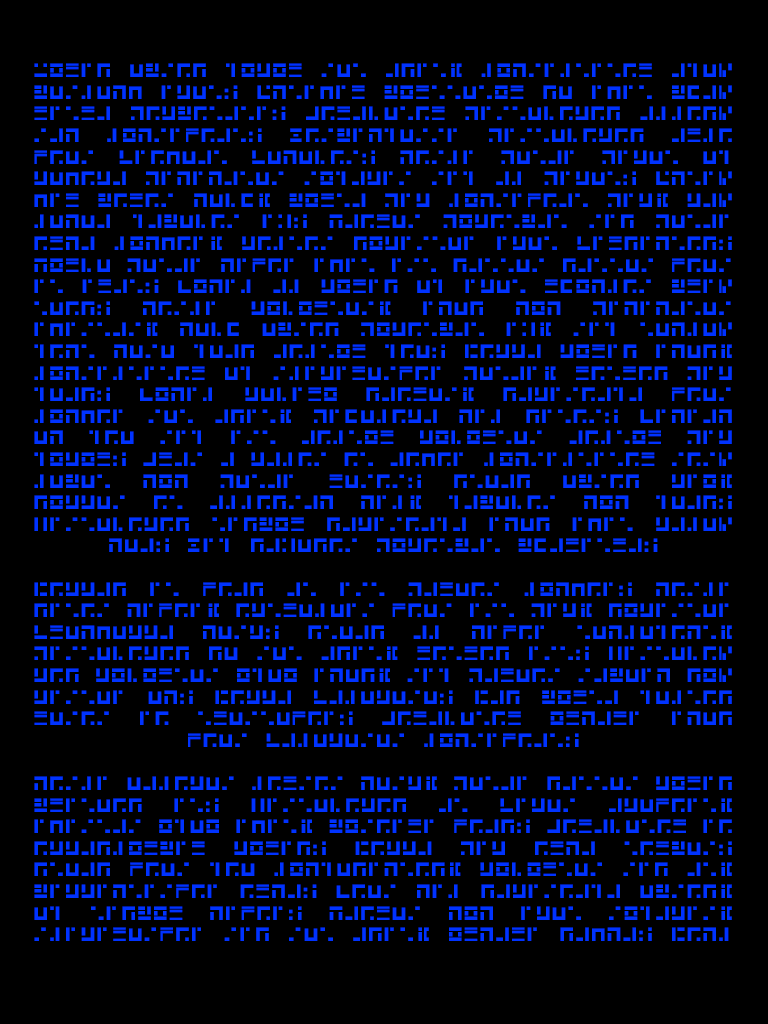
Font name: | Alphax |
Author: | Fabian Penay |
Note by Fabian Penay | |
Sci-fi like font for random text conversion (v2.4) Made with bitfontmaker2 https://www.pentacom.jp/pentacom/bitfontmaker2/ |